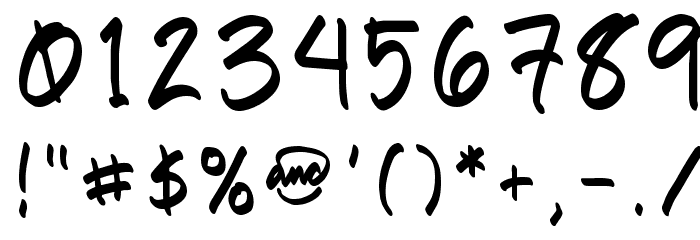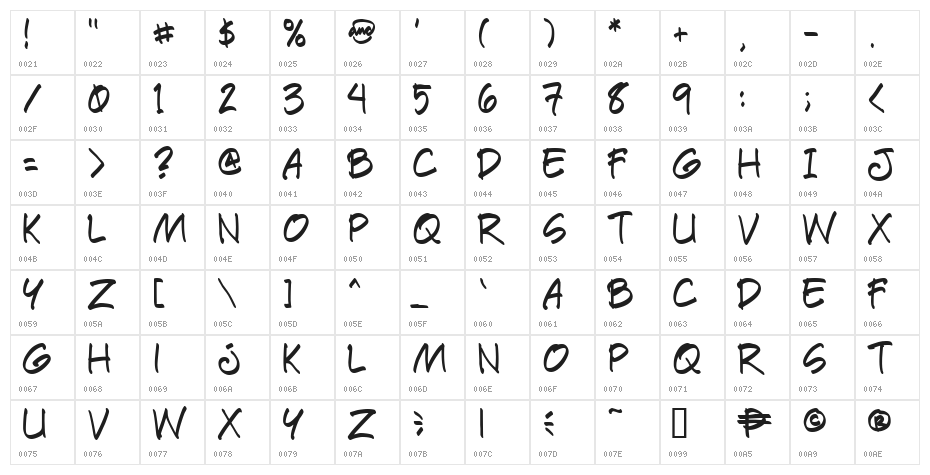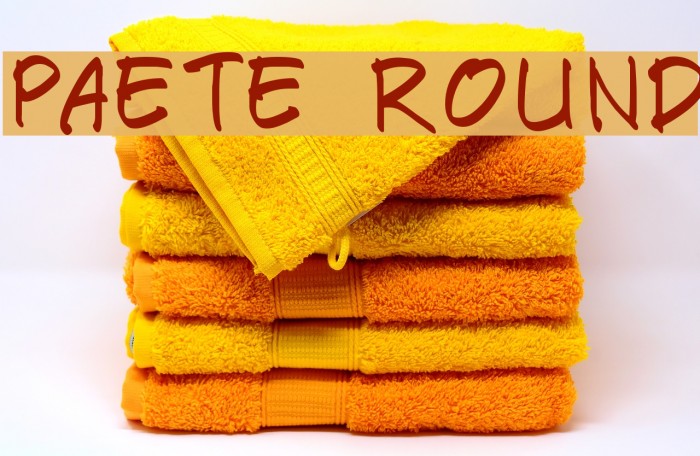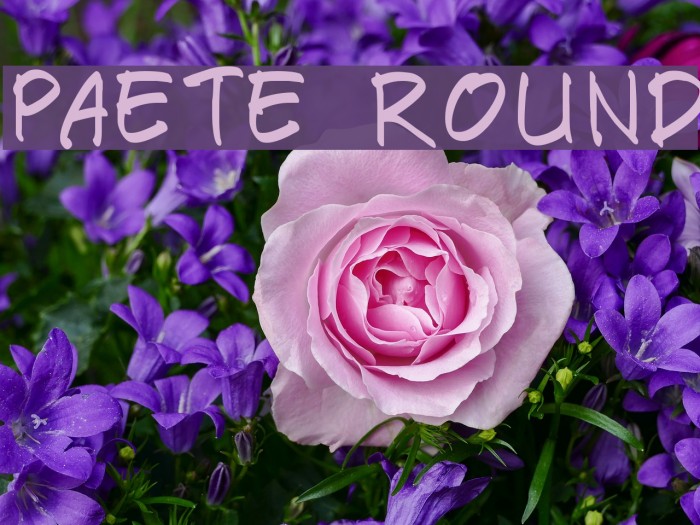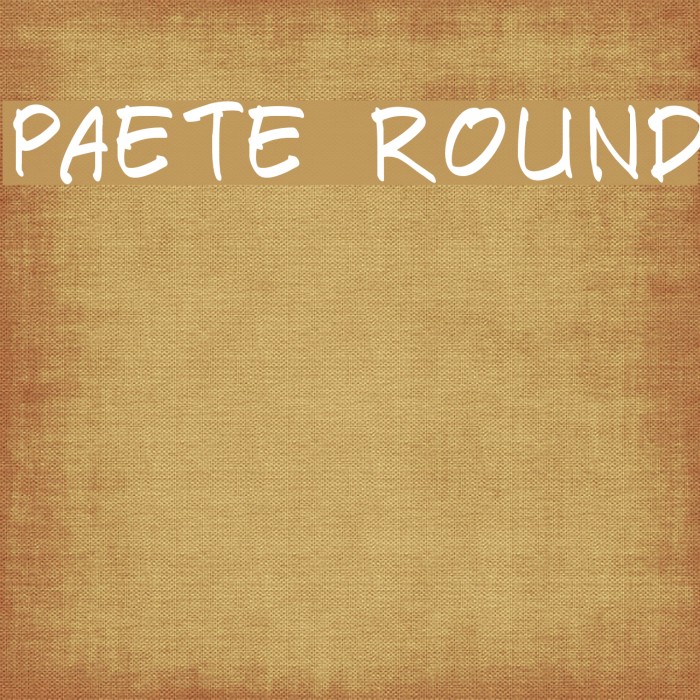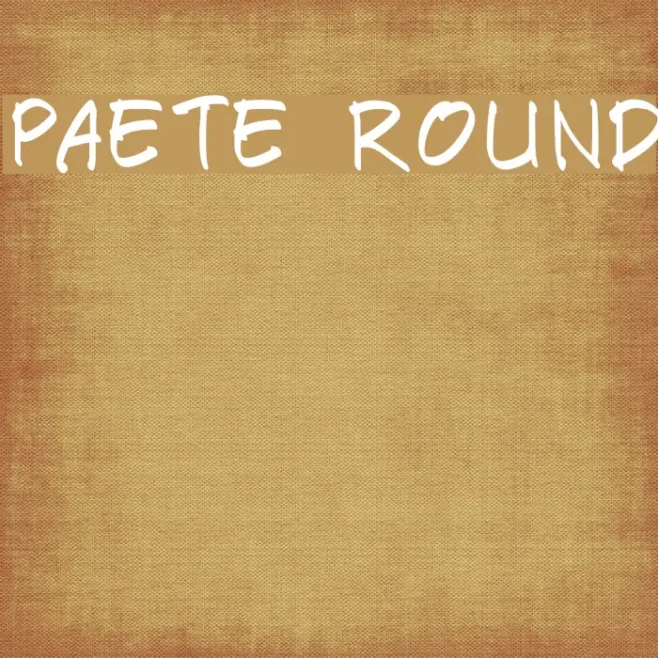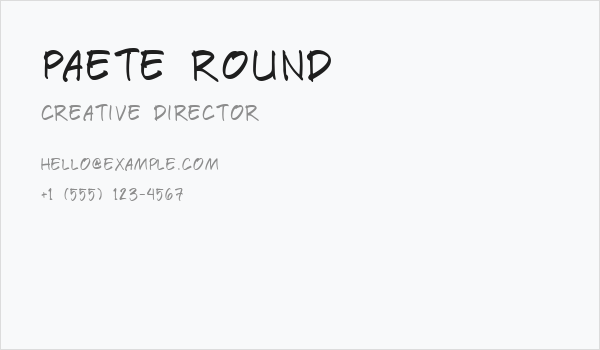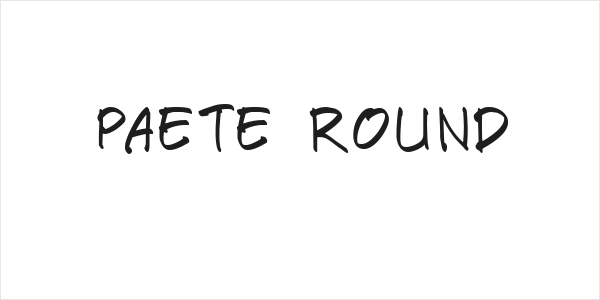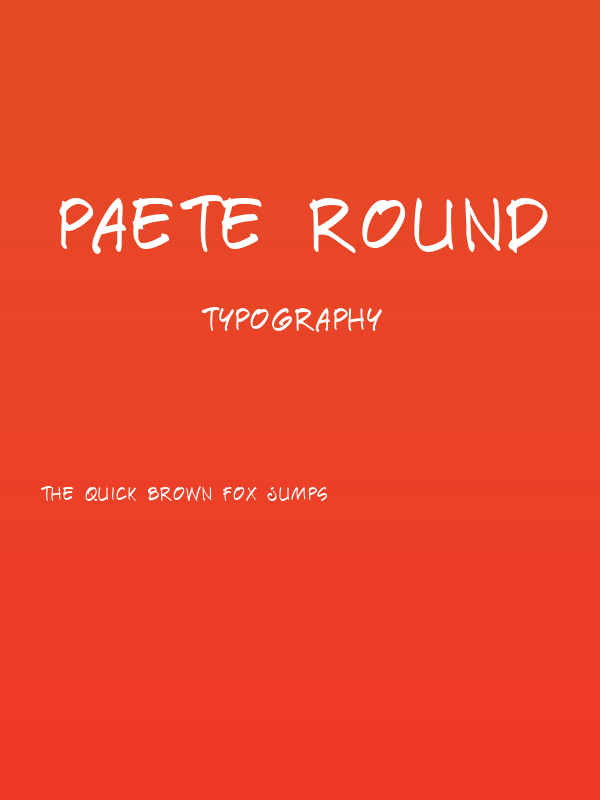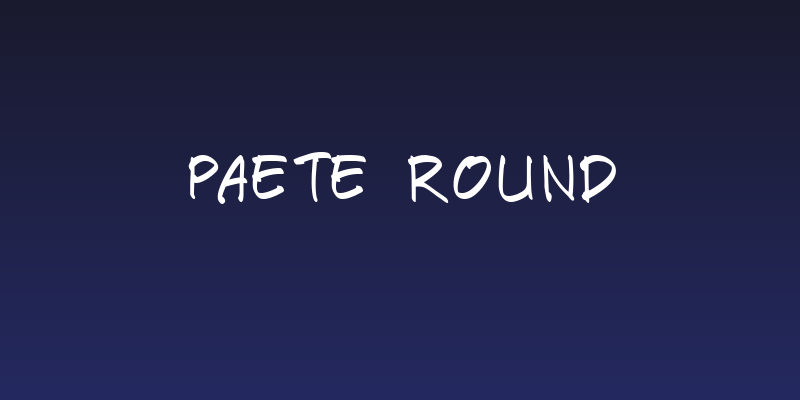
Paete Round Font
Paete Round Description
This font features a playful and casual handwritten style, characterized by its rounded and slightly irregular strokes. The letters have a dynamic flow, with a natural and organic appearance that mimics the look of a marker or brush pen. The uppercase and lowercase letters maintain a consistent style, providing a cohesive look across the alphabet. Numbers and special characters are designed with the same playful aesthetic, making them suitable for creative and informal projects. The font's overall appearance is friendly and approachable, making it ideal for designs that require a personal touch.
| Proposed Projects | Ideal for greeting cards, children's books, casual branding, and social media graphics. |